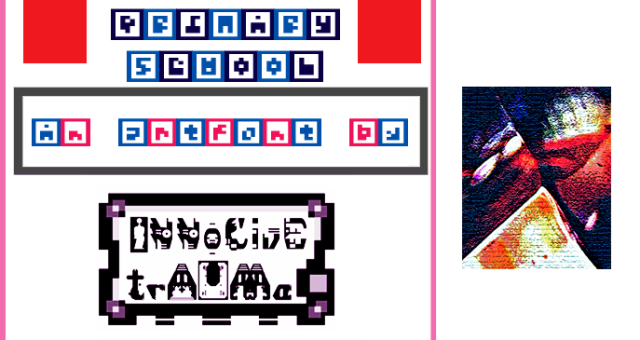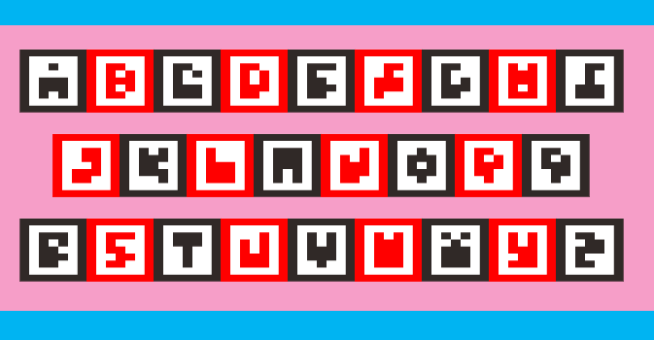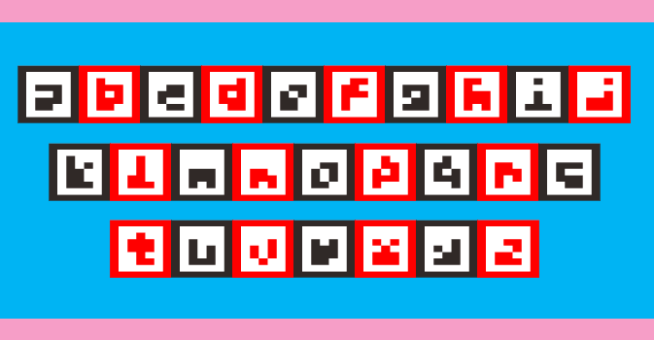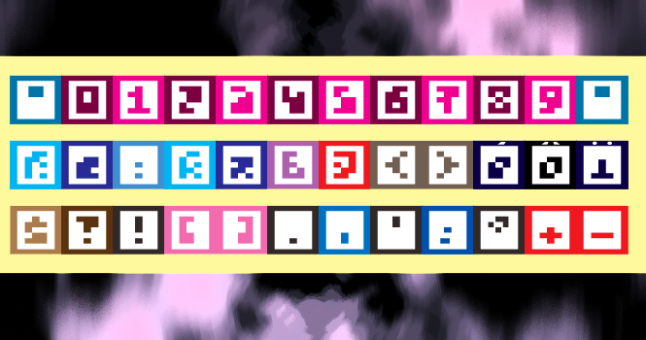
trAUMa 29 / Primary School
"Primary School", like all the "trAUMa" series, works at the frontier between Art & Type Design, Figuration & Abstraction, each font is a comprehensive world in which every glyph is a "living" entity. But put together they can produce your messages in the most accurate way.